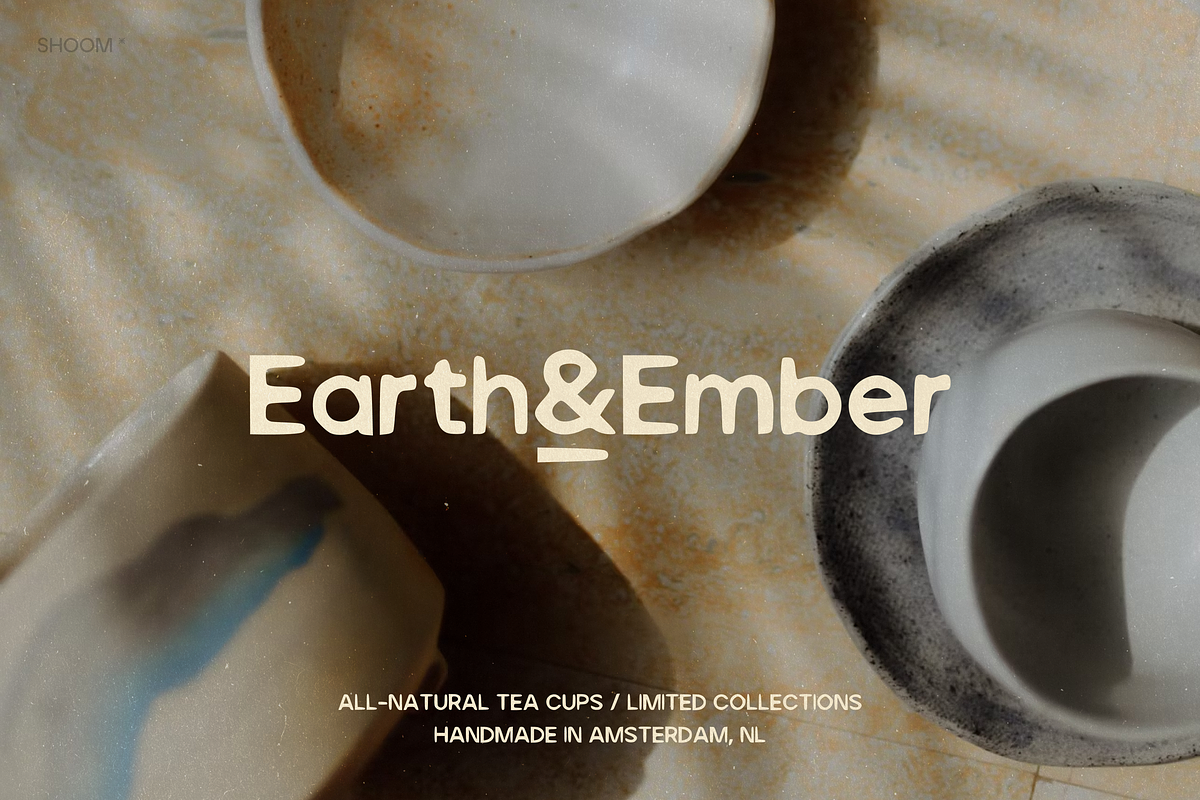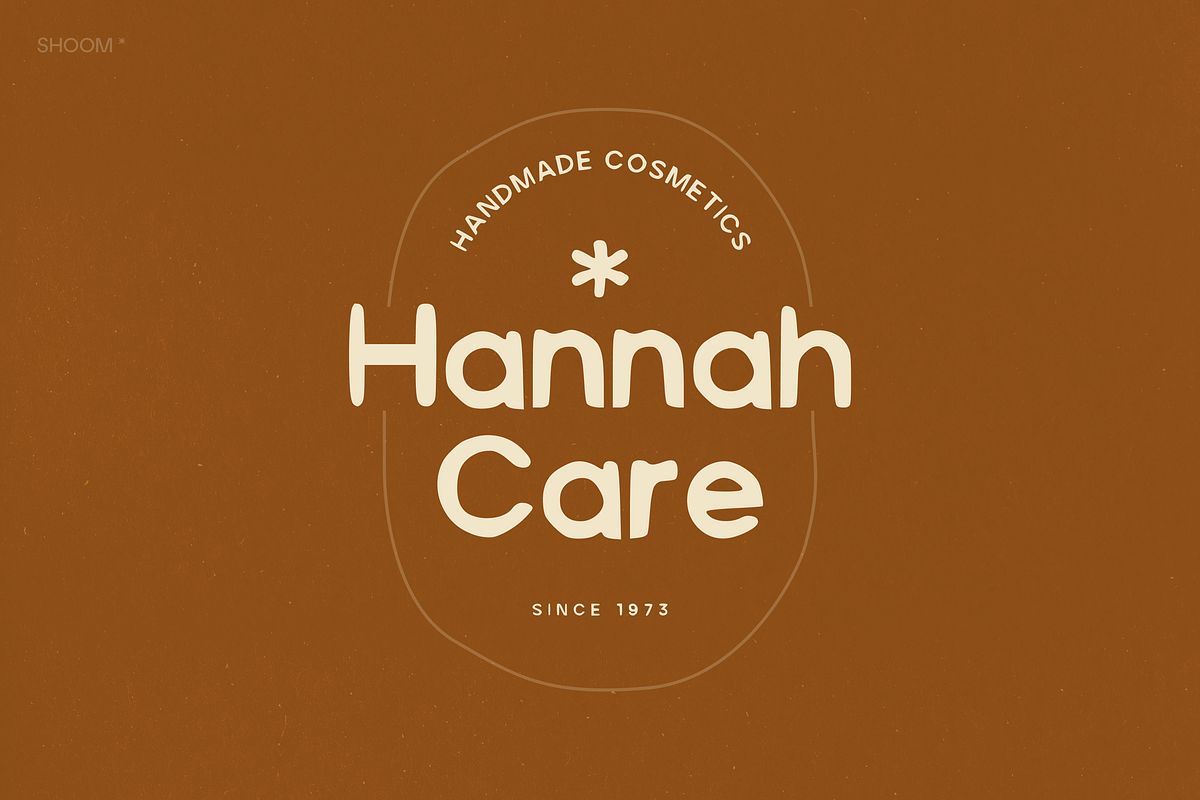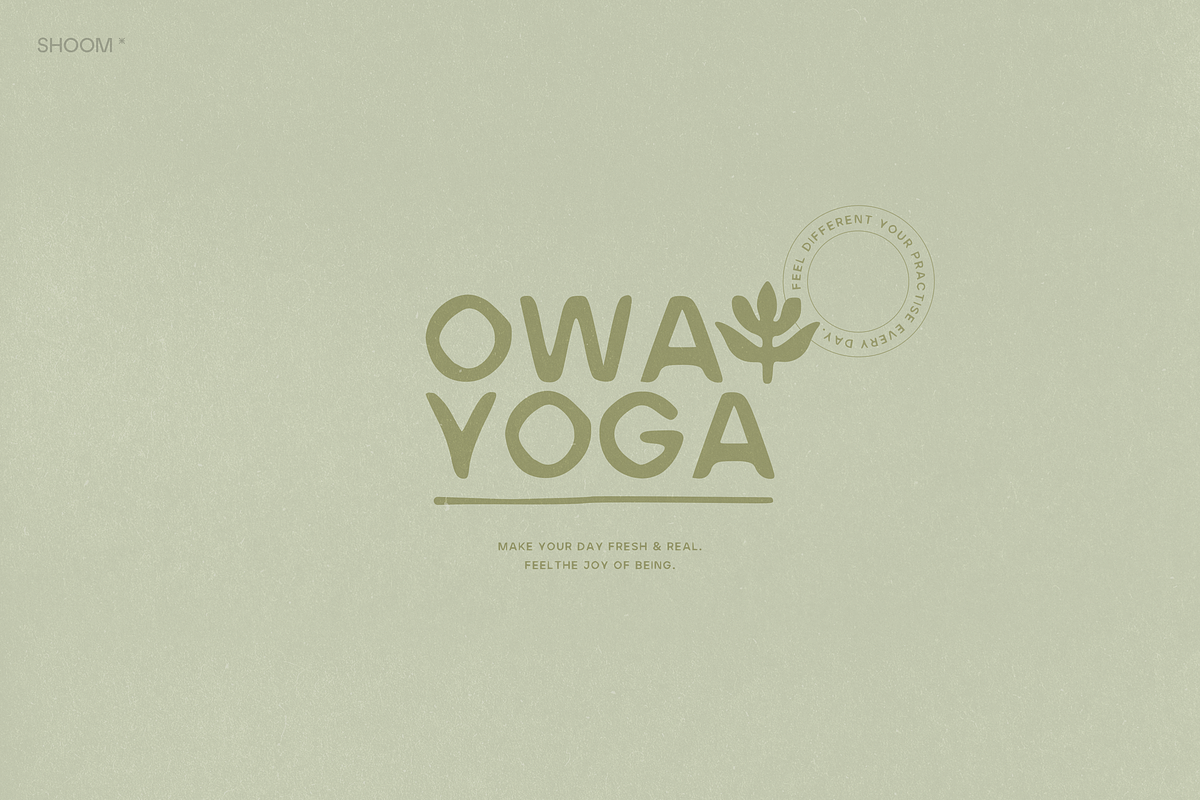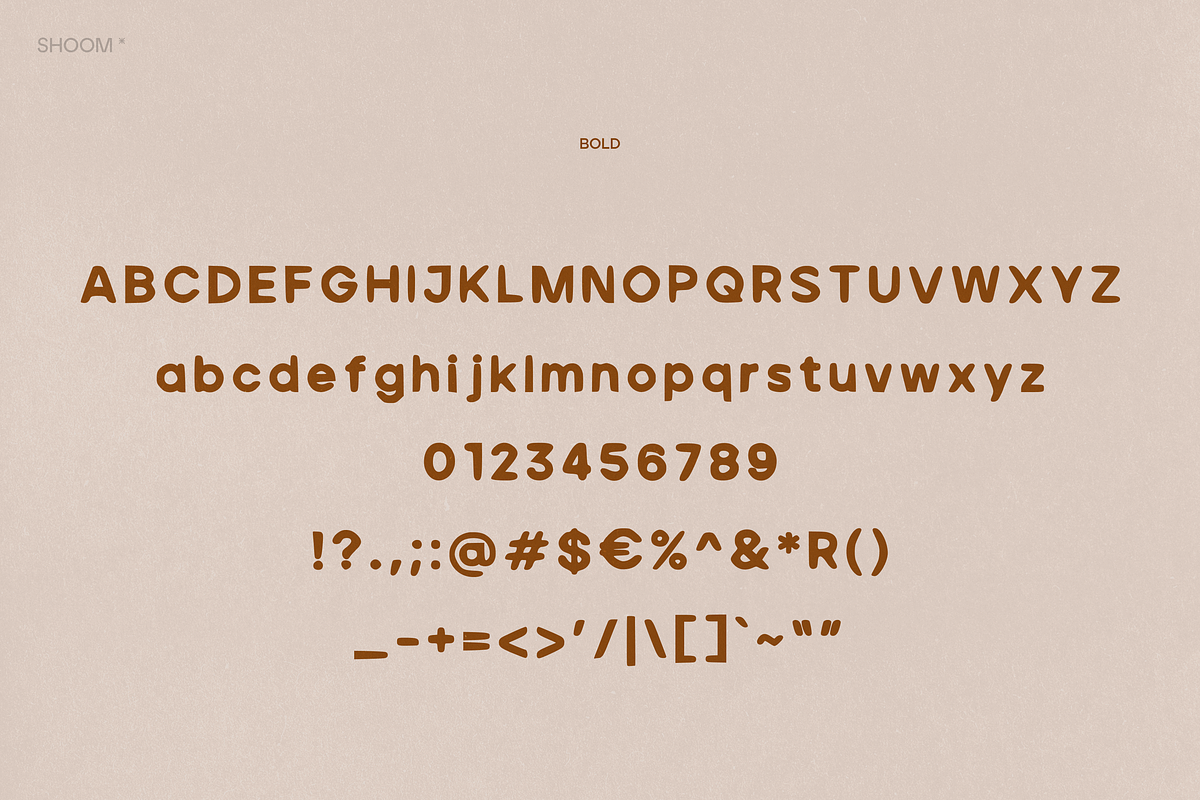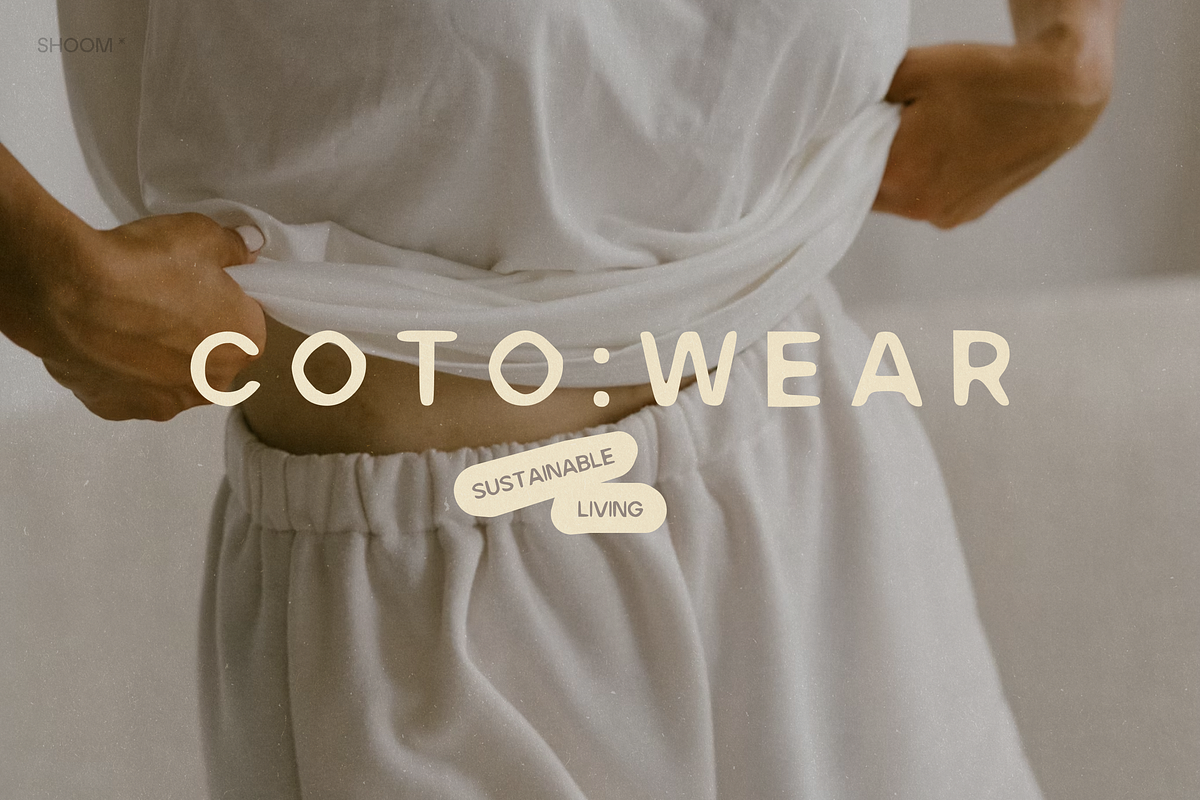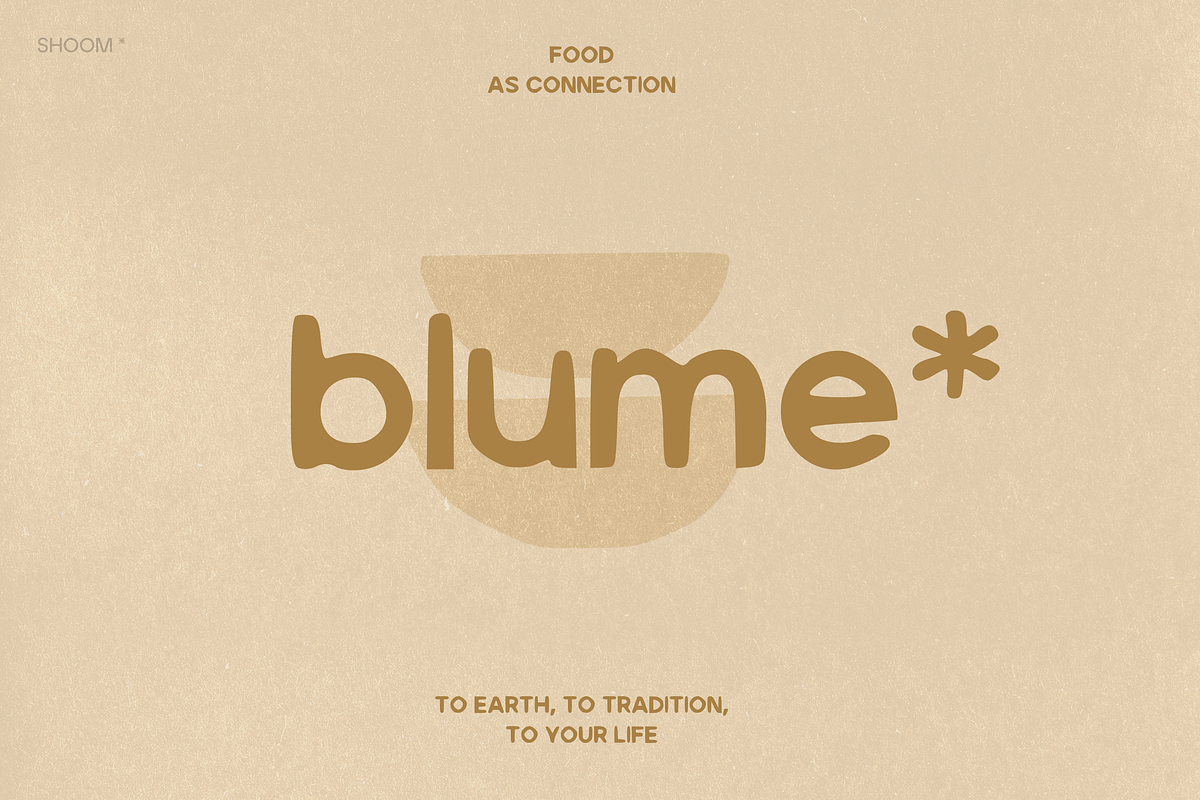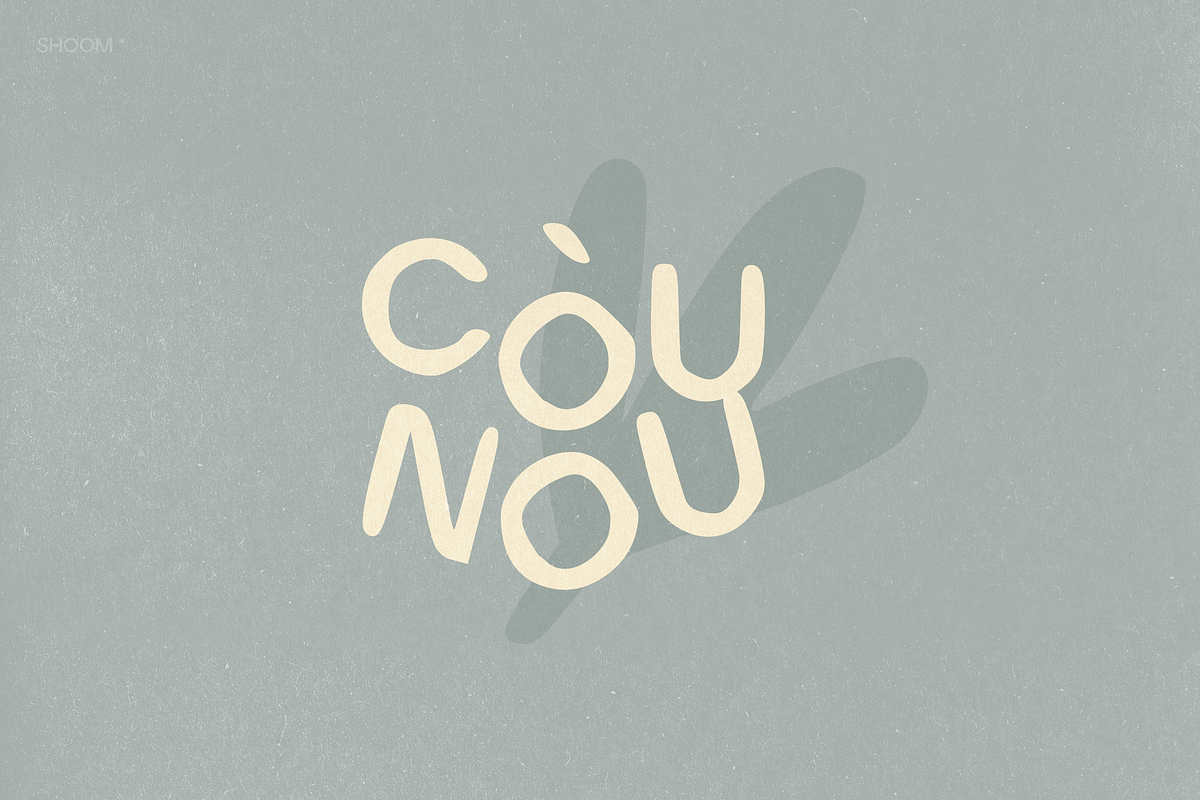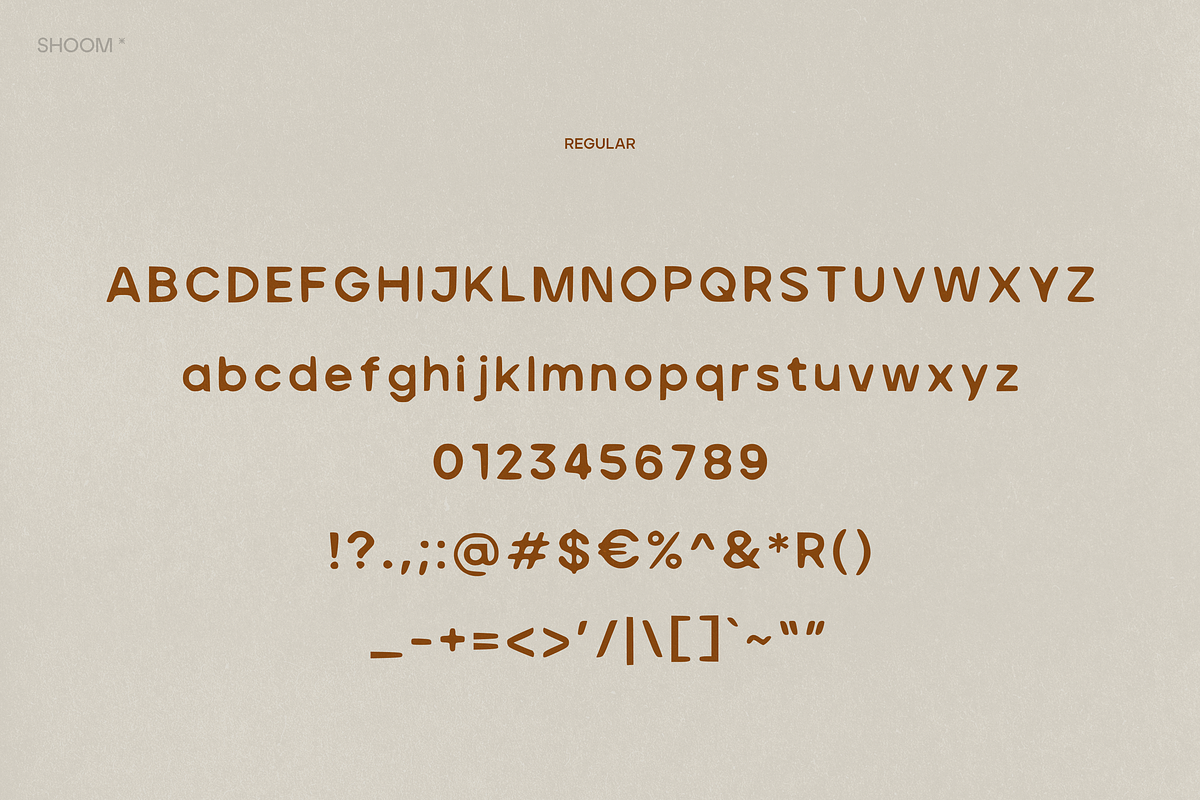
Clay&Cut - Organic Handwritten Font
✽ Meet a bold, organic handwritten font with raw energy and tactile charm.
Its cut-like shapes feel sculpted by hand, as if carved from clay. Imperfect, chunky, and full of character, it brings a crafted, human touch to logos, packaging, posters, and any design that craves authenticity and impact. Clay&Cut isn’t polished – it’s proudly untamed, giving your work that handmade edge that stands out in a digital world.
✽ FONT FEATURES
- Bold + Regular font weights
- Uppercase & lowercase English alphabet
- Numbers & punctuation symbols